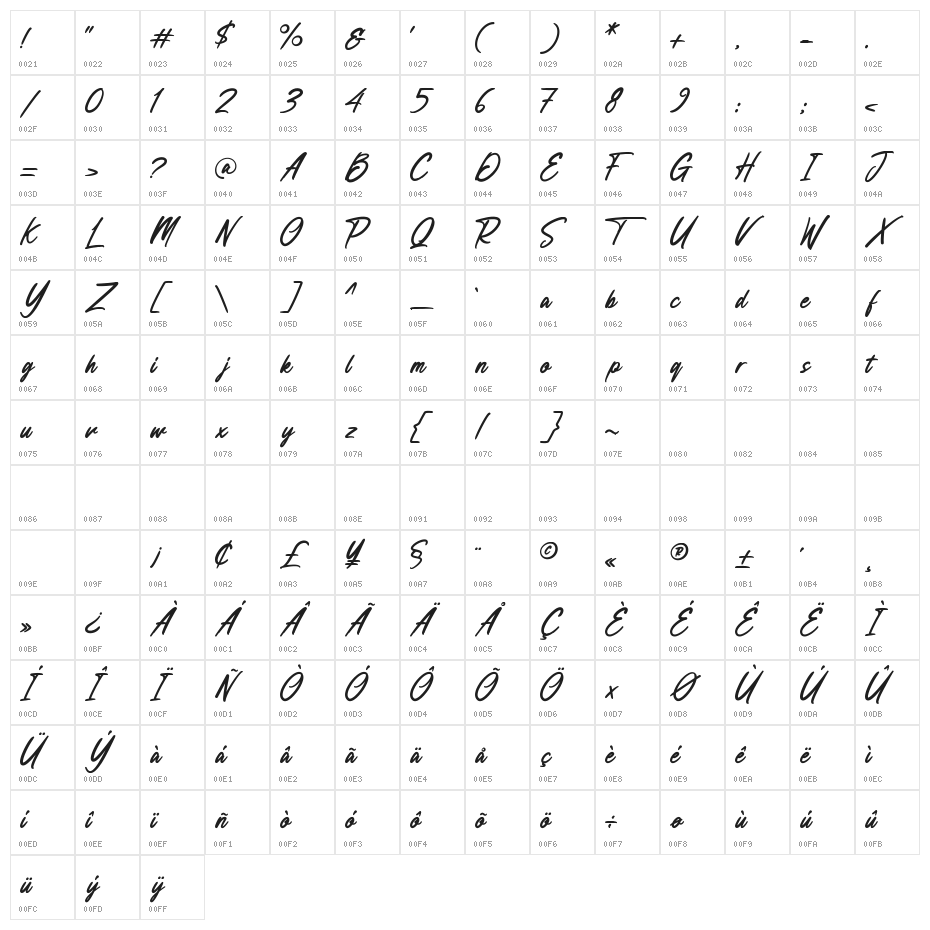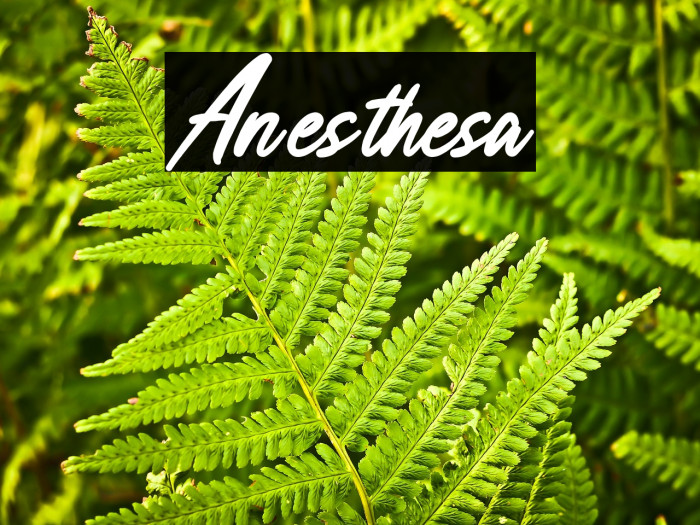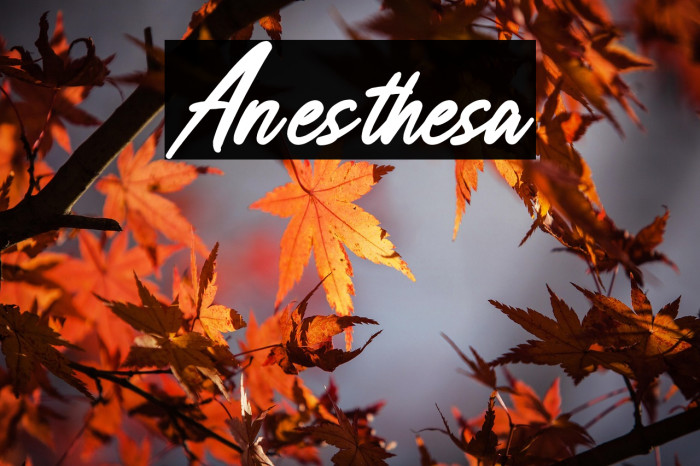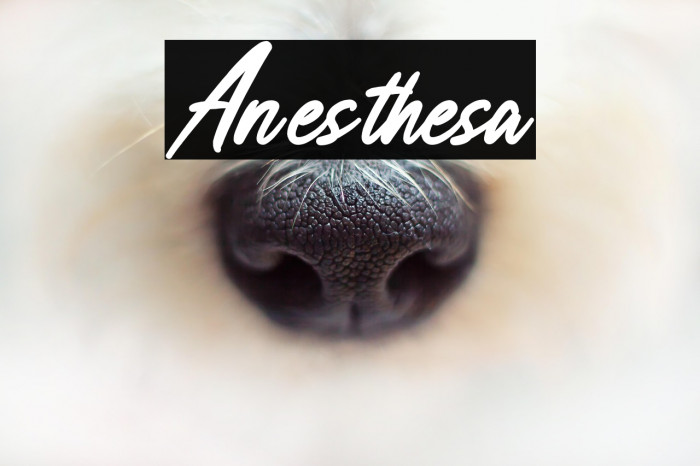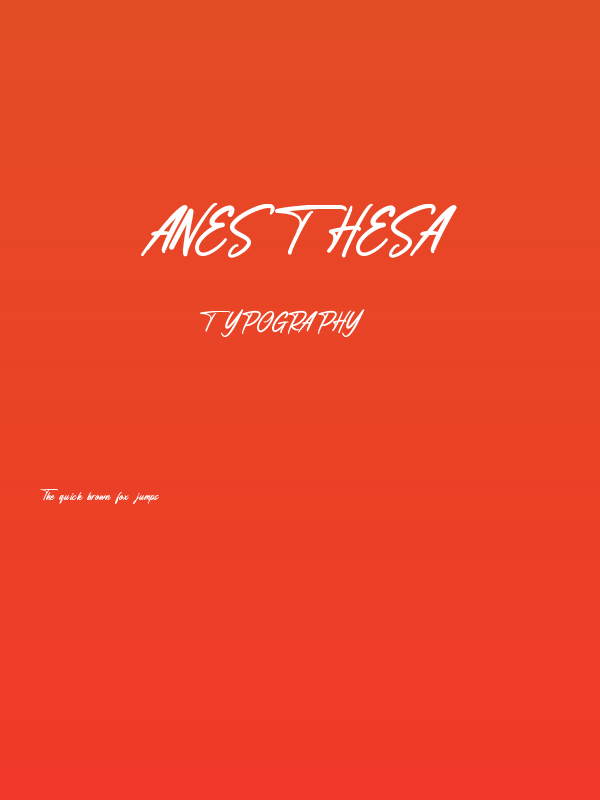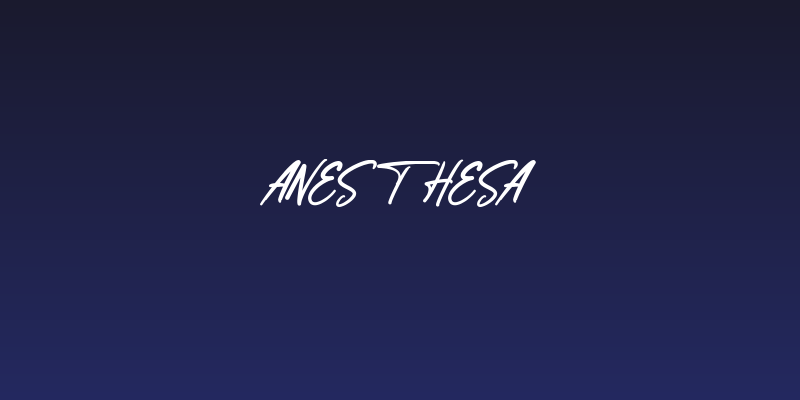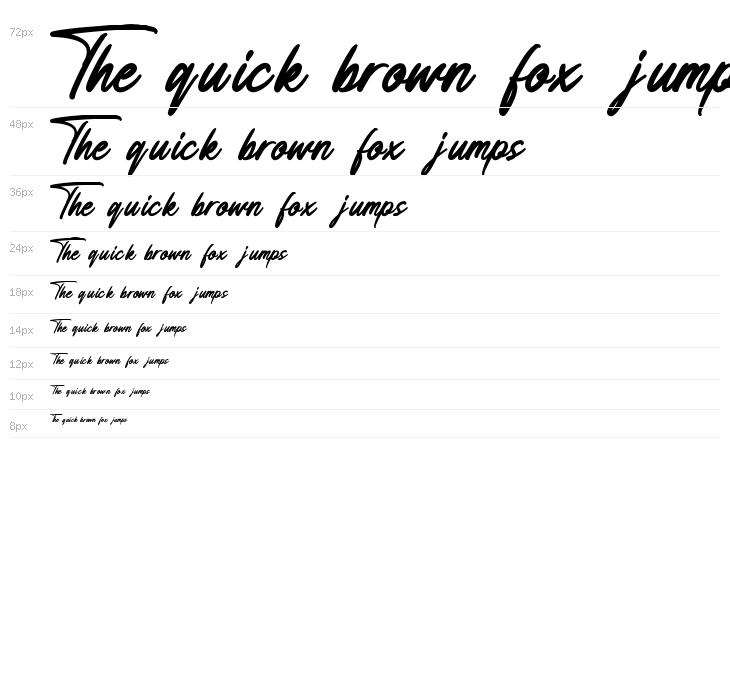
Anesthesa Font
This font features a dynamic and fluid script style, characterized by its smooth, flowing lines and cursive letterforms. The uppercase letters are bold and slightly slanted, giving a sense of movement and elegance. The lowercase letters maintain a consistent style, with rounded edges and a natural handwritten appearance. The numbers and special characters complement the overall aesthetic, maintaining the same fluidity and style. This font exudes a sense of creativity and personal touch, making it ideal for projects that require a personal or artistic flair.
| Use Case | Logos, Invitations, Artistic projects |
| Proposed Projects | Ideal for wedding invitations, greeting cards, personal branding, and artistic projects. |